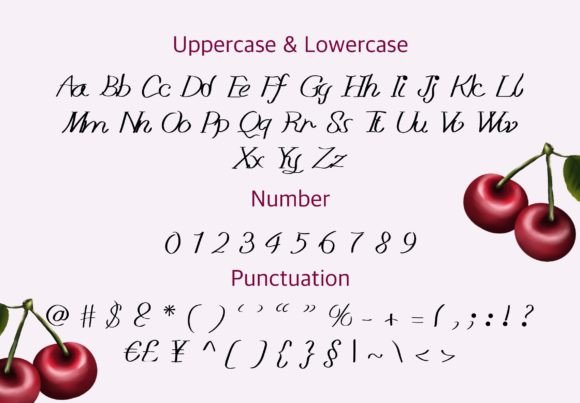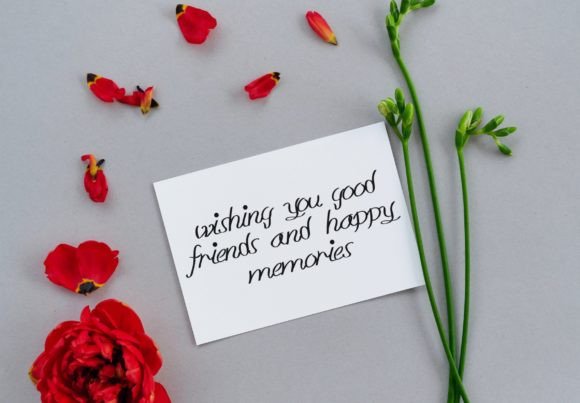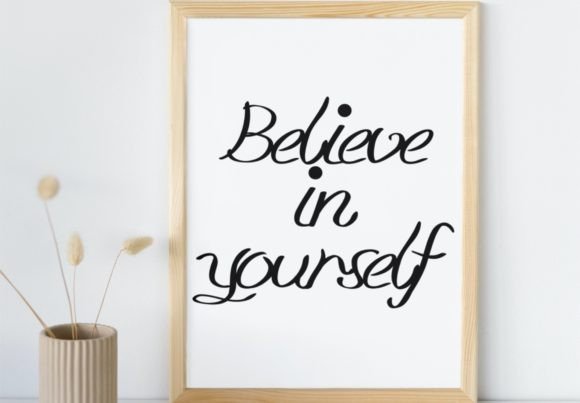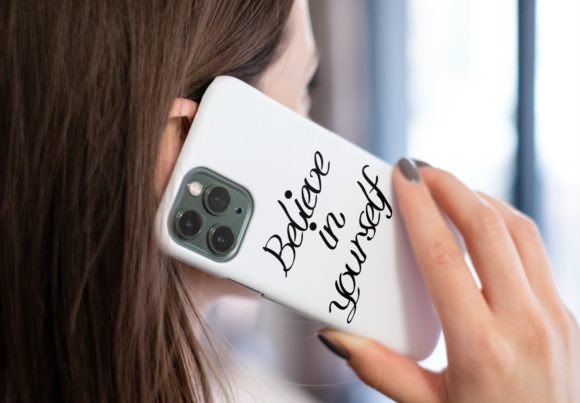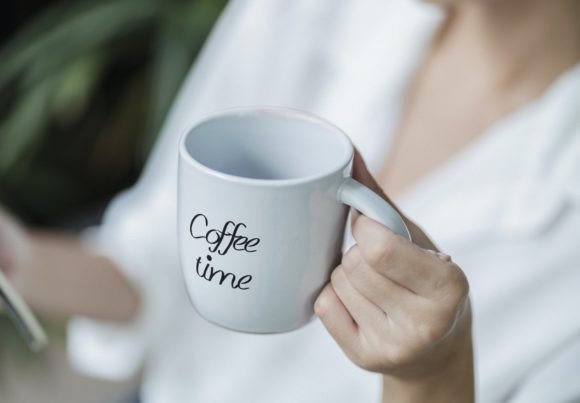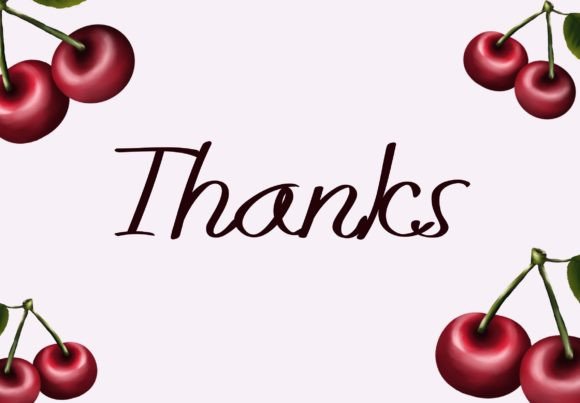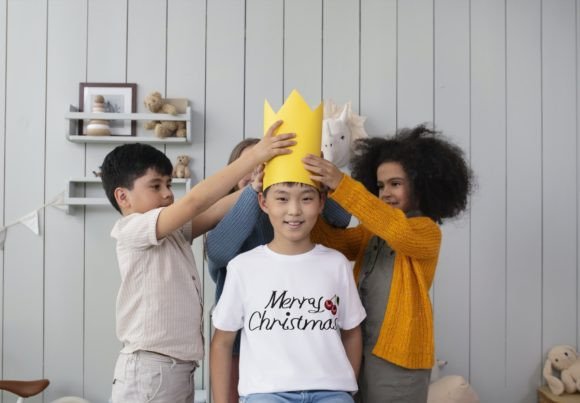
Cherry Font
About Cherry Font
“Cherry” is more than just a font; it’s a lovely and simple handwritten typeface crafted to bring warmth and charm to your Christmas projects and beyond. Meticulously designed, this font is perfect for a variety of creative endeavors, including invitations, wedding invitations, wall displays, social media posts, logos, T-shirts, posters, product packaging, labels, stationery, and more. Elevate your designs by adding “Cherry” to your creative toolkit and take your projects to the next level.
The appeal of “Cherry” lies in its lovely and simple handwritten style. Its clean lines and warm character make it an ideal choice for projects where you want to convey a sense of simplicity and charm. Whether used for Christmas-themed designs that radiate festive cheer or on various applications that demand a touch of warmth, this font delivers.
Imagine “Cherry” adding a delightful touch to Christmas invitations, where its lovely handwritten style enhances the overall festive vibe. Picture it on T-shirts, creating designs that exude simplicity and charm. Envision this font used in various creative applications, allowing you to express your creativity in diverse ways.
One of the standout features of “Cherry” is its versatility. Its lovely and simple style makes it adaptable to a range of design contexts, making it a great choice for expressing your creative ideas.
Whether you’re working on Christmas projects, invitations, or any other creative endeavor, “Cherry” offers a lovely and simple handwritten typeface that adds warmth and charm to your designs. It’s not just a font; it’s a creative asset that brings a delightful touch to your projects. Let “Cherry” be the handwritten script that transforms your creations into visually enchanting and memorable works of art.